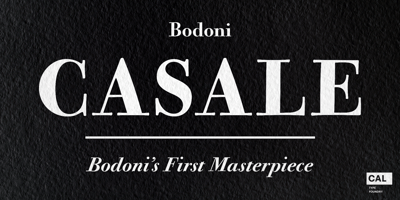
CAL Bodoni Casale
CAL Bodoni Casale font
CAL Bodoni Casale Font Family was designed by Giambattista Bodoni, Dave Lawrence, CAL Origins Design Team and published by California Type Foundry. CAL Bodoni Casale contains 14 styles and family package options. This typeface has been beloved throughout history. Bodoni used it to print his first masterwork, but it has never before been publicly available. Now available for the first time, CAL Bodoni Casale has been painstakingly crafted from hi-res scans of 4 original Bodoni printings.Unlike many Bodonis drawn from computerized straight lines, this Bodoni follows the original contours of the master himself. With small caps, old style numbers, special options for $, %, £, €, Bodoni Casale allows you to make elegant pricing, sales signs, or logos.Besides it’s authentic origins, Casale’s 21st century debut includes Features & Alternates never seen before, including Frankenfont (giving the font 6 fun alternative uses with 1 click!). Other alternates, such as the $ and €, give the user options when styling their work. Various word and letter spacing options are also automatically included so the user can choose to preserve Bodoni’s original spacings or go with a more modern look.The Bodoni for White on BlackMost Bodoni fonts will start to disappear on black. Bodoni Casale’s robust strokes don’t disappear, even when set to smaller sizes. The robust strokes of this Bodoni font also lend visibility and legibility at large sizes with dark background, such as on signage. What You Get✓Bodoni’s original font, Roman + Italic and small caps ✓Style Sets for quick and beautiful formatting✓5 Unicase Options✓An army of percentage signs, dollar signs, and money symbols.✓Punctuation Options for any reading situation✓A Realistic and Inky look✓Designed by Bodoni HimselfFor a Full Tour of Bodoni Casale, here’s a video!